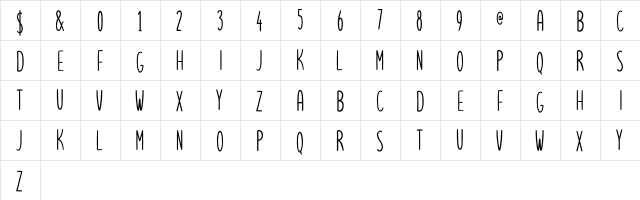
Lets get crazy sans Regular
| Foundry | Pedro Alexandre Vilas Boas Teixeira |
| Designer | Pedro Alexandre Teixeira |
Design Context for Lets get crazy sans Typeface
Lets get crazy sans takes a measured approach to typography — its balanced proportions and neutral character make it a reliable workhorse for both digital and print work.